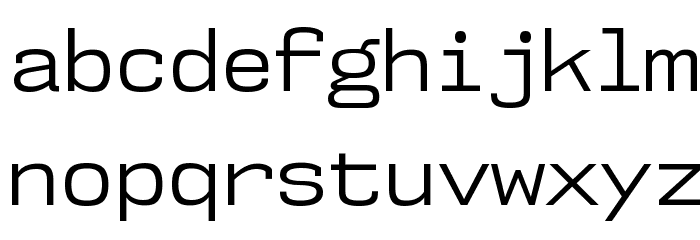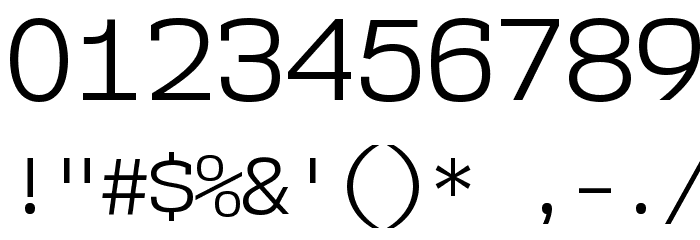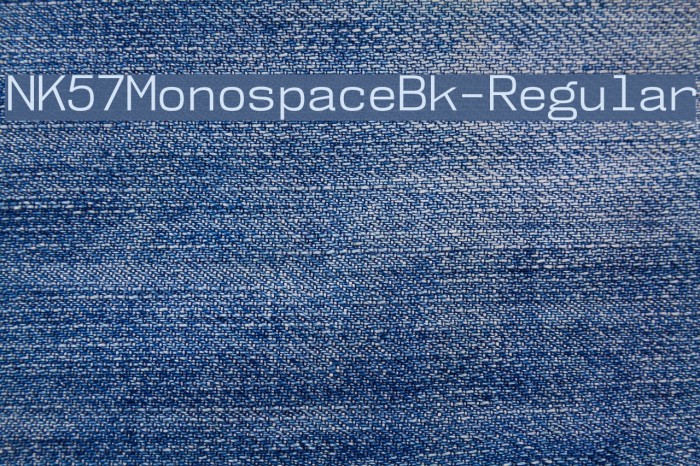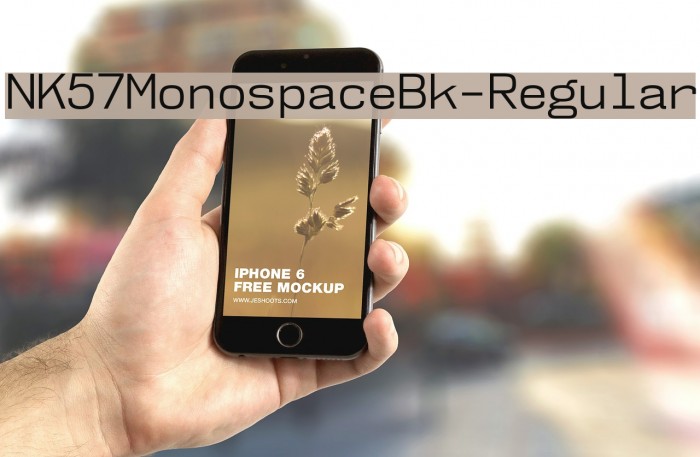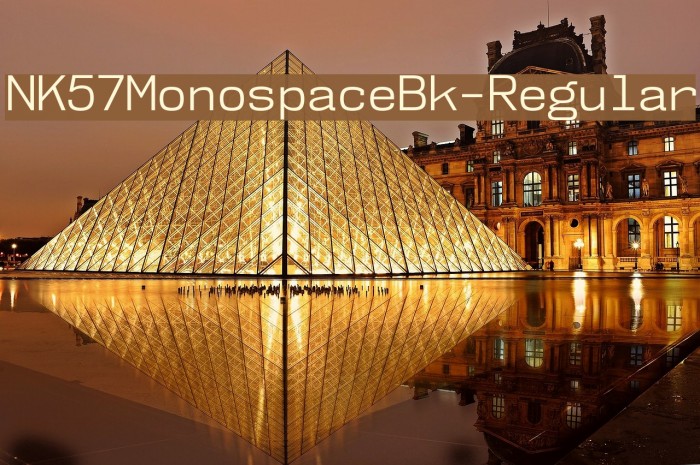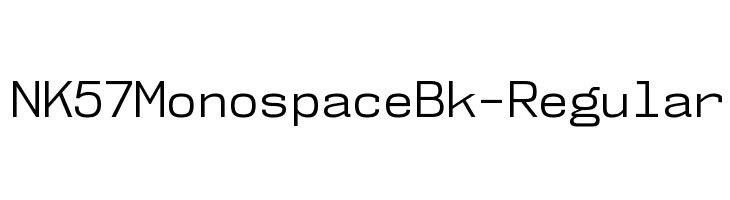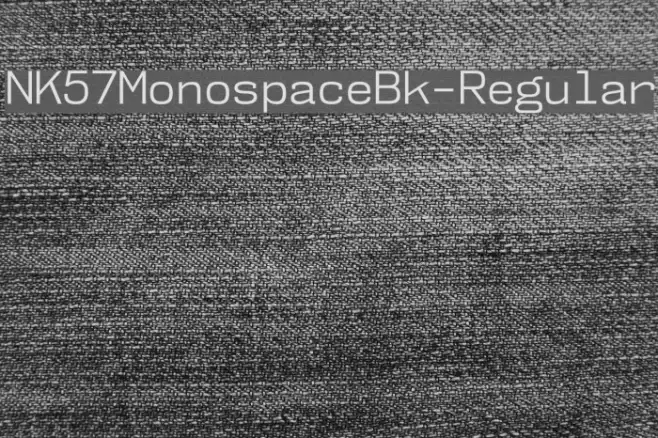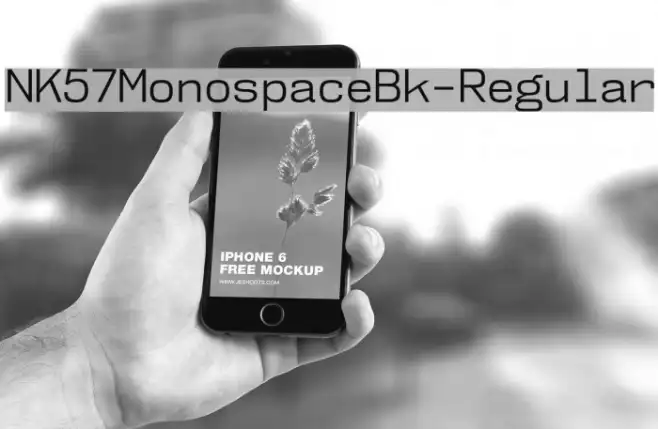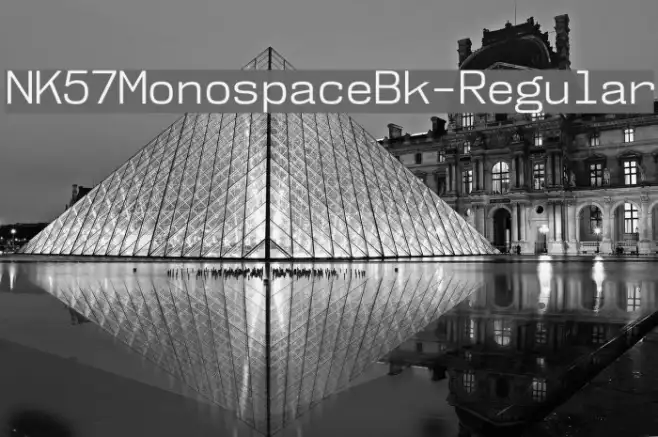
NK57MonospaceBk-Regular Font
This typeface is a clean and modern monospaced font, characterized by its uniform spacing and geometric shapes. Each character occupies the same amount of horizontal space, making it ideal for coding and tabular data. The design is minimalistic, with straight lines and sharp angles, providing a sleek and professional appearance. The uppercase letters are bold and assertive, while the lowercase letters maintain a consistent height and width, ensuring readability. The numerals are clear and distinct, with a balanced weight that complements the overall design. Special characters are well-defined, enhancing the font's versatility.
A clean, modern monospaced font with uniform spacing and geometric shapes.
- Proposed Projects: Ideal for coding, technical documentation, data tables, and any project requiring precise alignment.
- Use Case: Coding, Technical documentation, Data tables